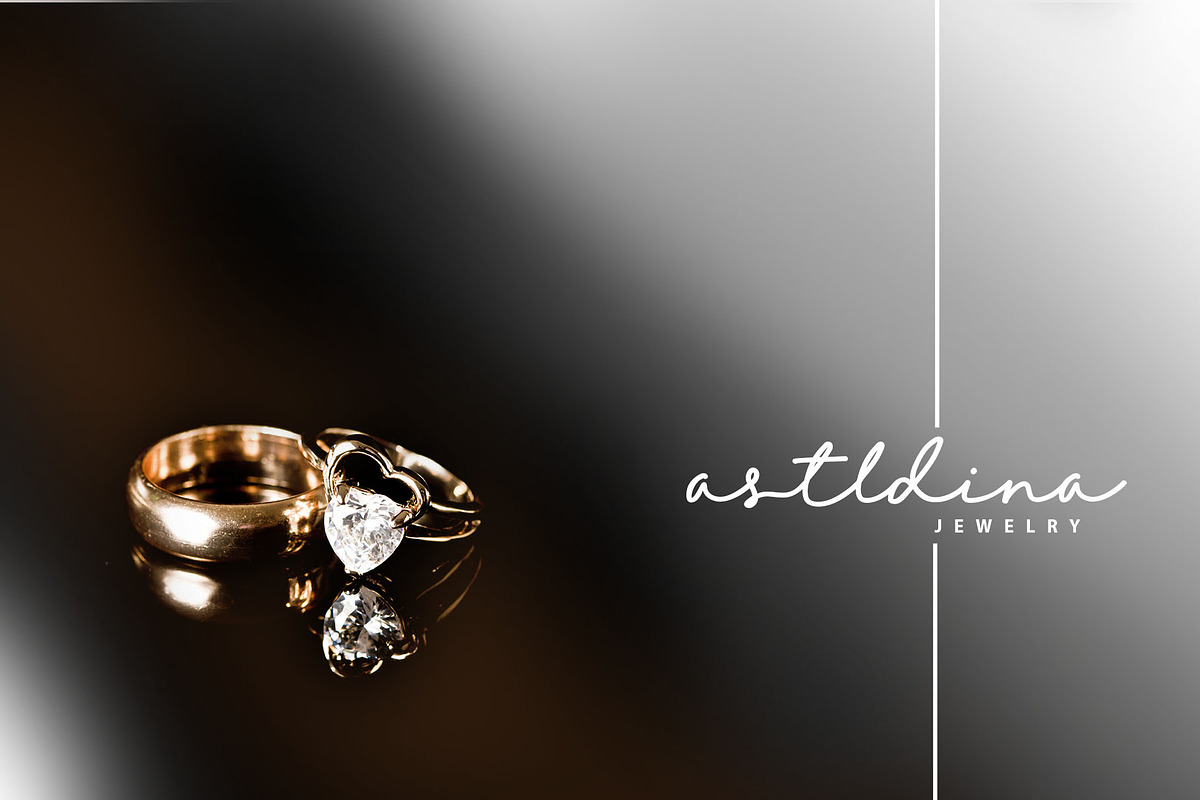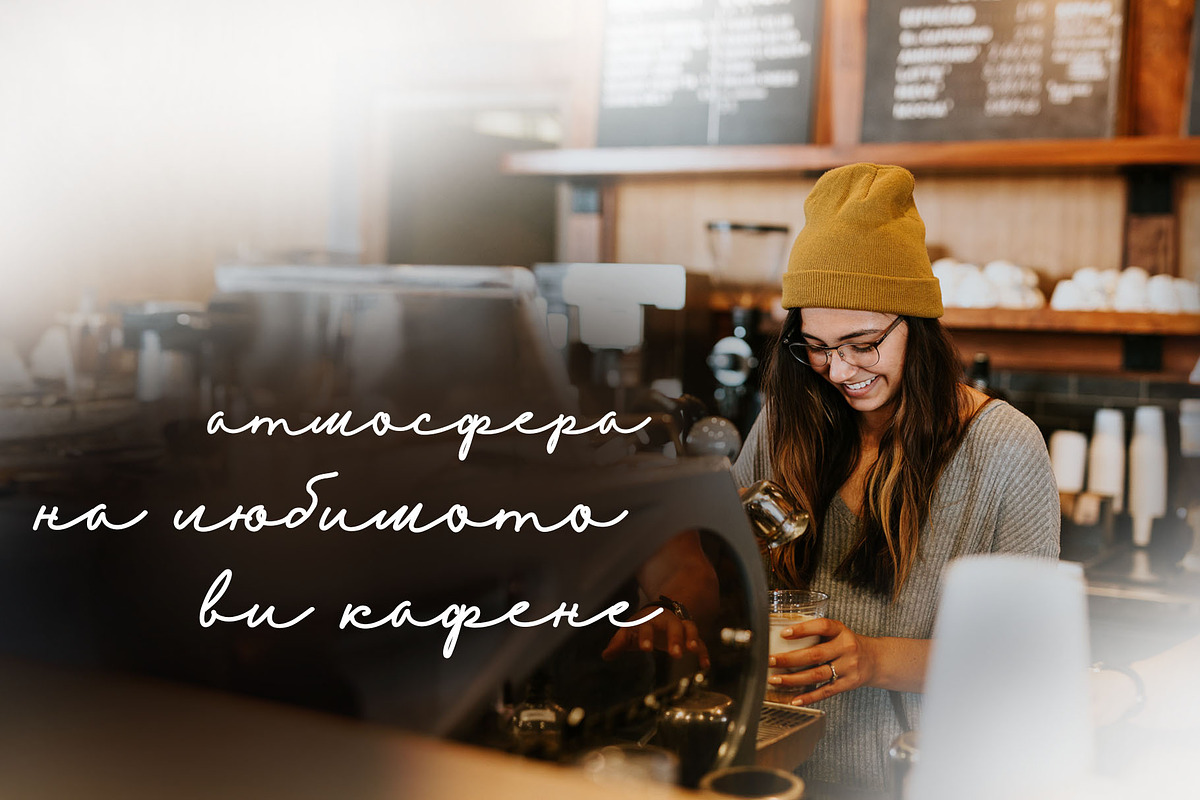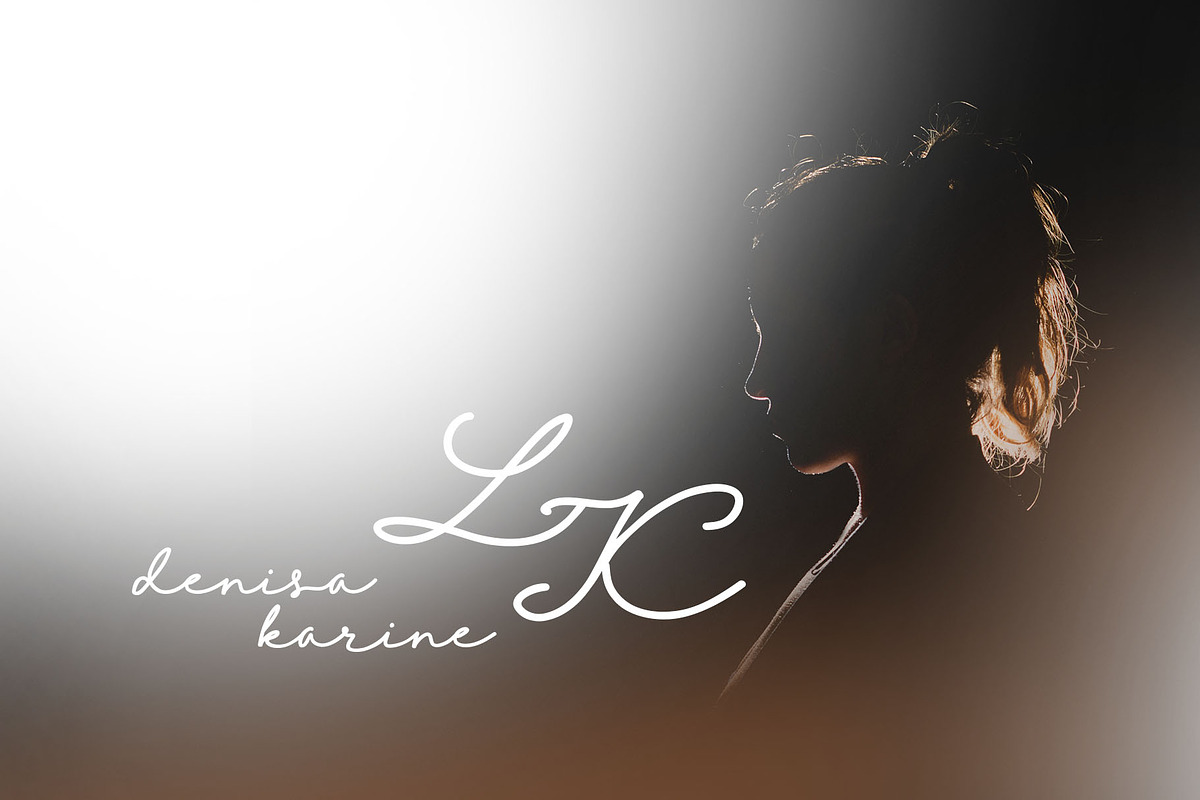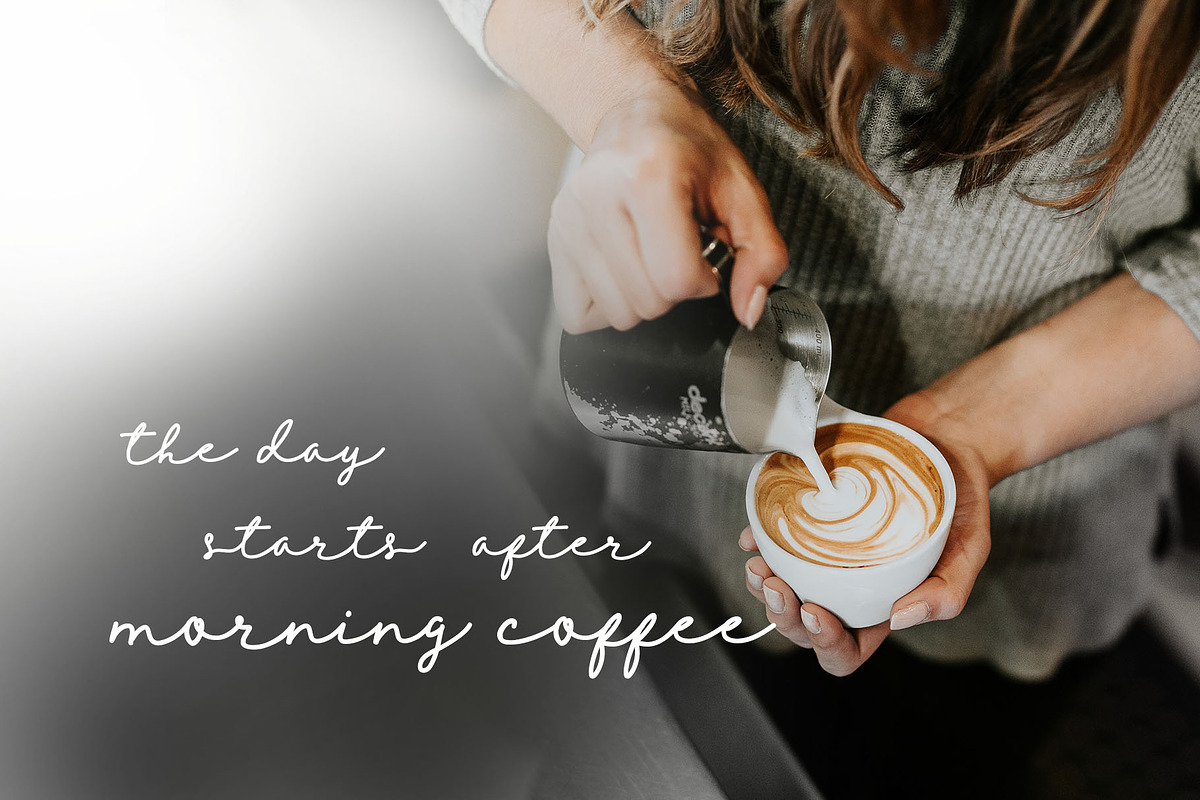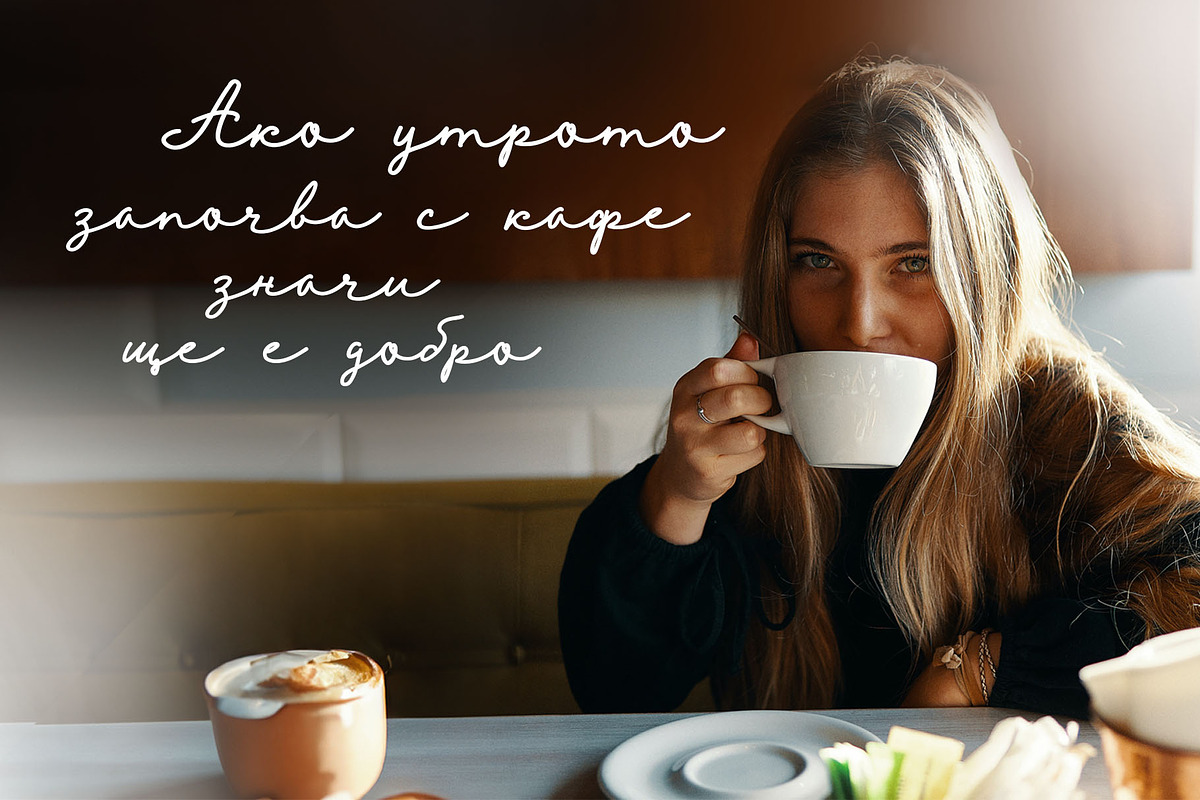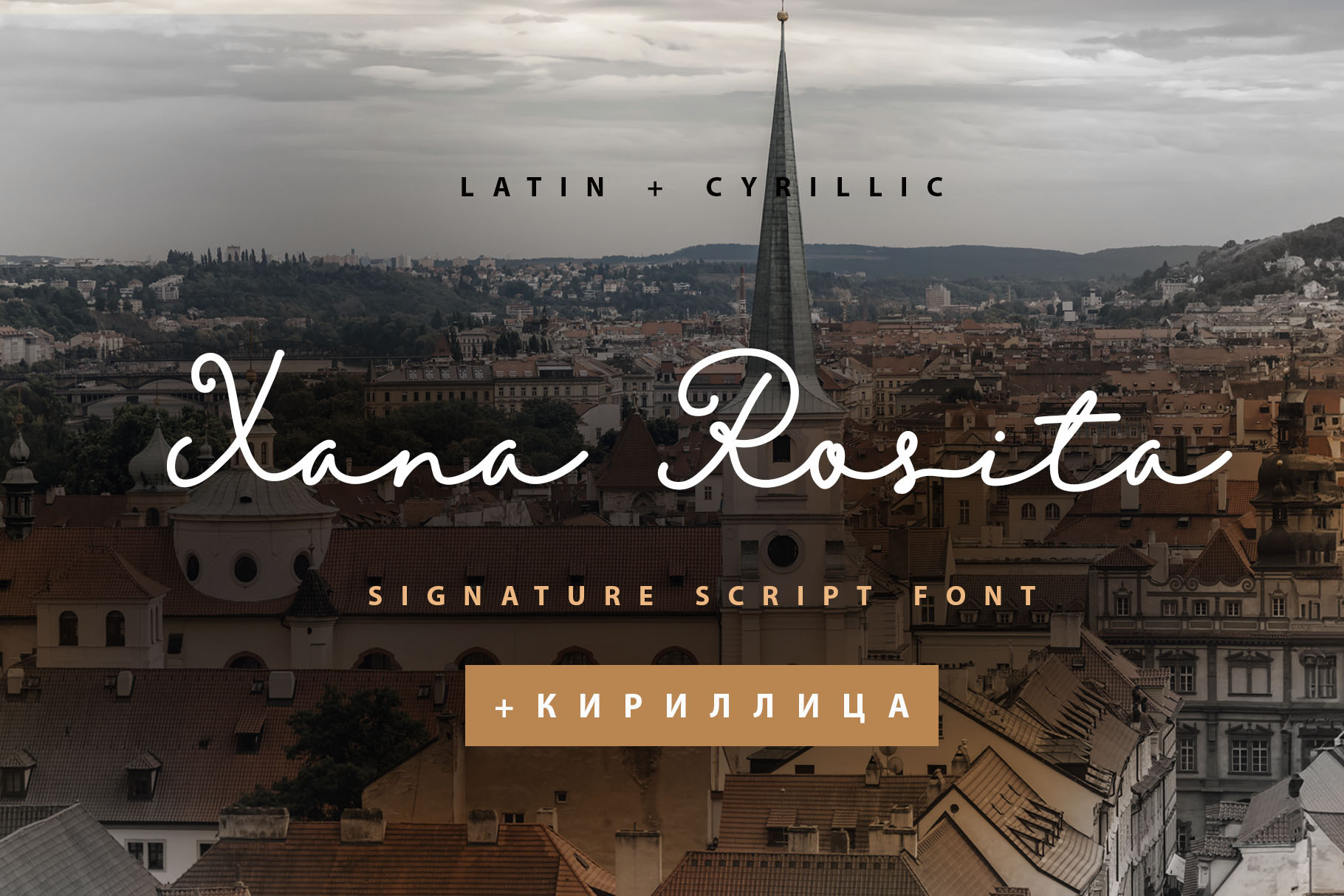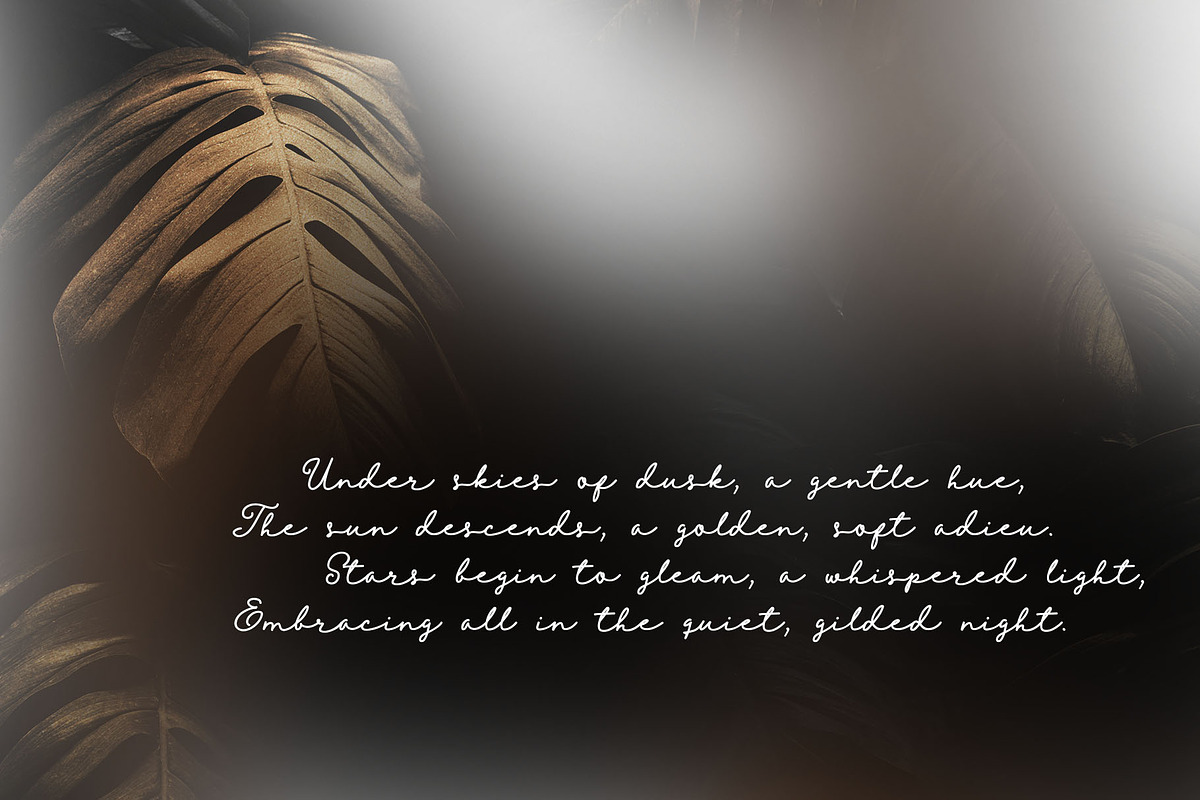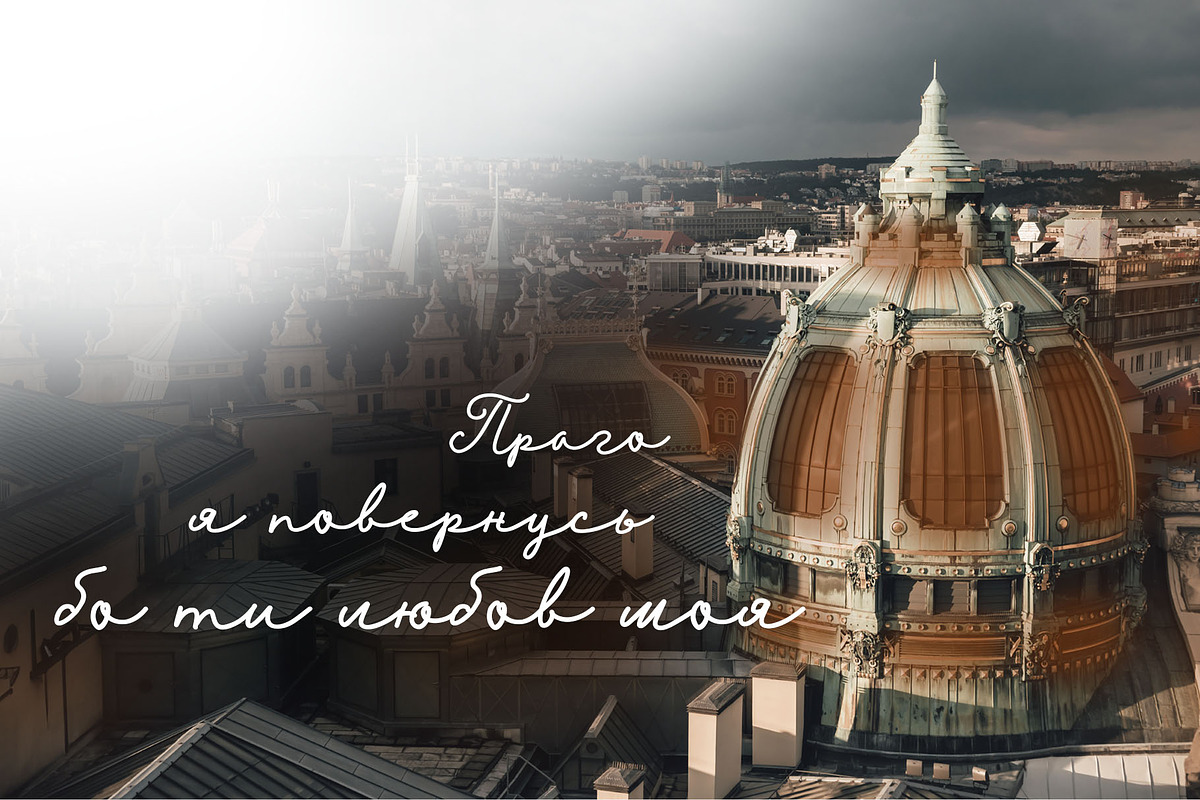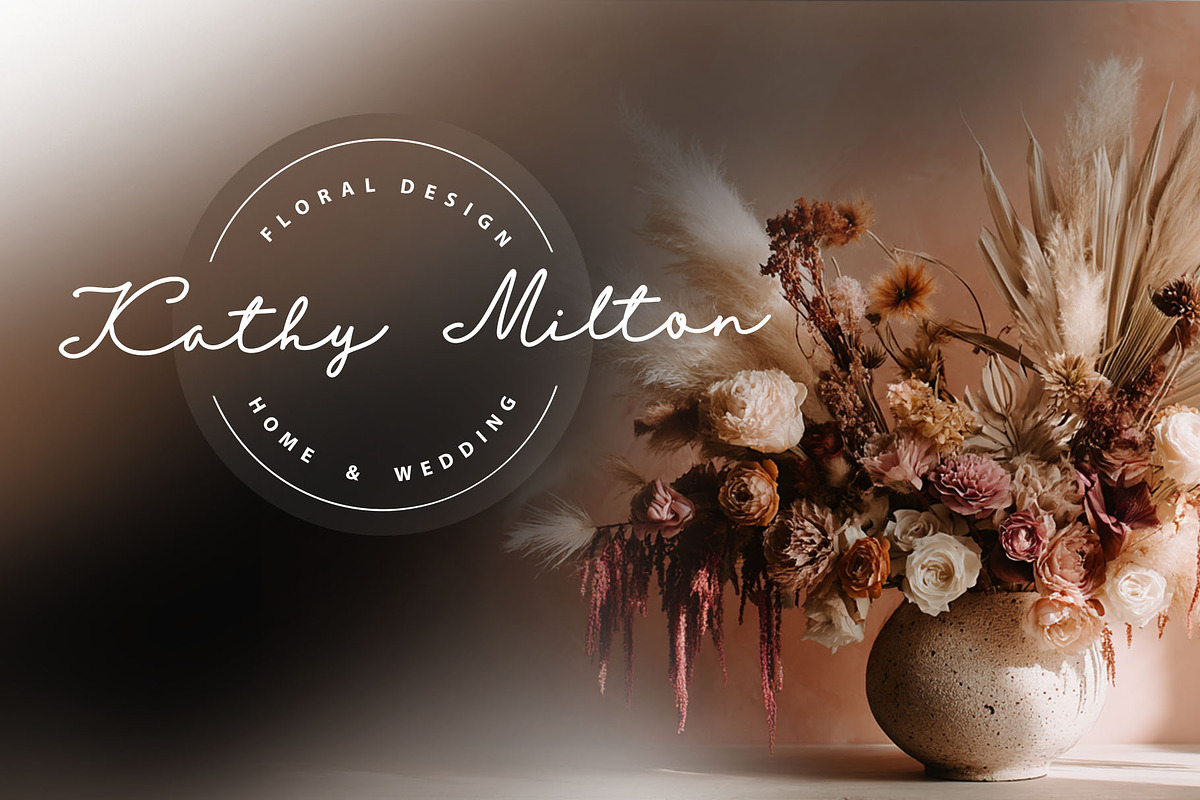
Xana Rosita Cyrillic Font
Xana Rosita Cyrillic script is a pretty monoline font that will look gorgeous on all your designs, wedding stationery, love stories, branding materials, logos, pretty teenage stickers, business and wedding cards, calligraphy Insta quotes, elegant fashion sketches, calligraphy love monograms and much more.
Xana Rosita script font contains the Cyrillic glyphs too.
Multilingual Support for 31 languages: Latin glyphs for Afrikaans, Albanian, Basque, Bosnian, Catalan, Danish, Dutch, English, Estonian, Faroese, Filipino, Finnish, French, Galician, Indonesian, Irish, Italian, Malay, Norwegian Bokmål, Portuguese, Slovenian, Spanish, Swahili, Swedish, Turkish, Welsh, Zulu.
And Cyrillic glyphs support Ukrainian, Belorussian, Bulgarian, Russian Mongolian and Kazakh languages.